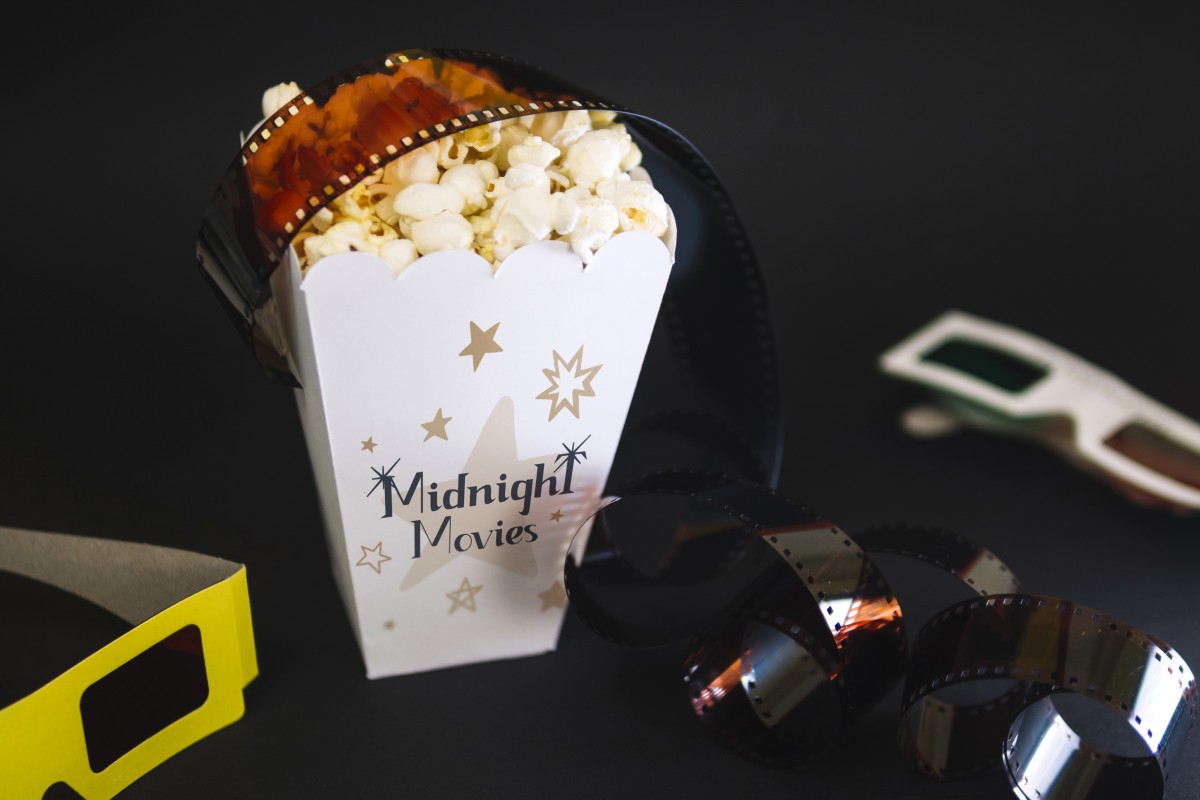
Sparks Night Font
Sparks Night Display Font
It’s a fancy, sparkling display font with decorative alternatives letters. There are three styles for the basic of this font : Regular, Italic and Bold. Again, this font features alternative letters to show the shining sparks ornament. Use this font to add that special style to your any special designs including party flyer, events, festival, birthday, graduations, kids products etc